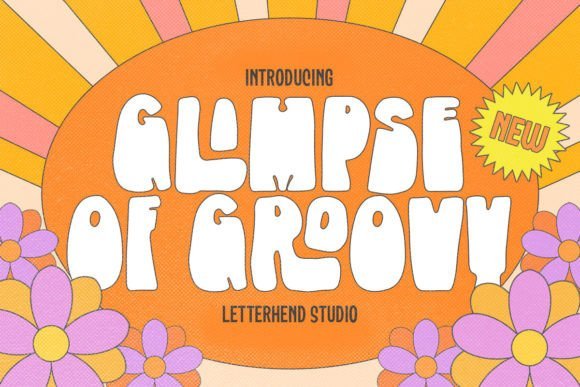
Get Ready to Groove: The Ultimate Retro Font for Designers
Have you ever been stuck in a creative rut, searching for the perfect font to bring your design to life? We’ve all been there – scrolling through font libraries, trying to find that elusive ‘it’ factor. For designers, the right font can make all the difference in conveying the essence of a project. And, trust us, we’ve found it – the Glimpse of Groovy Font is here to transport you back to the swinging 60s.
This retro bold font is a treasure trove of groovy vibes, perfect for adding that extra oomph to your designs. With its bold, playful letters, the Glimpse of Groovy Font is sure to bring a smile to your face and a touch of nostalgia to your projects.
Glimpse of Groovy Font Key Features
- Font Family: Glimpse of Groovy Font is a sans-serif font family with 6 styles, including Regular, Italic, Bold, Bold Italic, Condensed, and Condensed Bold.
- Character Set: The font family supports a wide range of languages, including Latin, Cyrillic, Greek, and many others, with over 1000 glyphs.
- Unique Characteristics: Glimpse of Groovy Font features a unique blend of modern and vintage design elements, with a distinctive rounded edge and a subtle texture that gives it a tactile feel.
Glimpse of Groovy Font Review
Overall, I think “Glimpse of Groovy Font” has some great qualities that make it a decent choice for designers looking for a retro vibe.
- ✨ Unique and playful style that’s perfect for creative projects
- ✨ Good range of font weights and styles, including bold and italic
- ✨ Supports a variety of languages, making it a good choice for global designs
- ⚠️ Limited legibility at smaller font sizes, which can be a problem for text-heavy projects
- ⚠️ Some characters may not render correctly in certain operating systems or browsers
- ⚠️ Lacks advanced features like ligatures or contextual alternates
Overall, I’d say “Glimpse of Groovy Font” is a solid choice for designers who want a fun, retro vibe without breaking the bank. However, it may not be the best choice for projects that require high legibility or advanced typography features.
The Glimpse of Groovy Font is ideal for creative projects, including:
– Designing invitations and event materials
– Creating social media graphics and ads
– Developing branding materials, such as logos and business cards